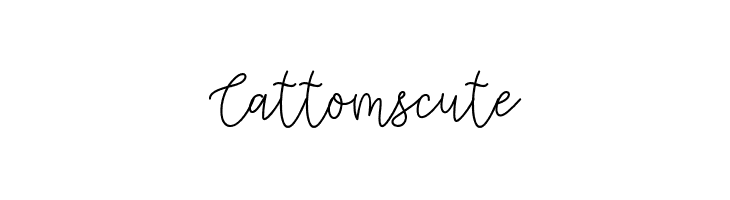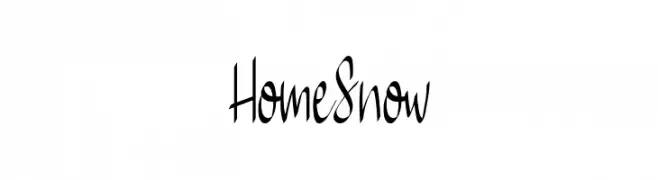
A charming and fluid script font with elegant, flowing lines.
A dynamic, expressive handwritten font with fluid strokes and elegant slant.
A bold, handwritten-style font with dynamic strokes and playful character.
A playful, whimsical handwritten font with thin, fluid strokes.
A decorative script font with a distressed, vintage look.
A bold, brush-style font with dynamic, irregular strokes.
A lively and elegant script font with flowing, cursive letterforms.
A bold, distressed font with star cutouts, ideal for edgy designs.
A lively, expressive handwritten font with fluid, dynamic strokes.